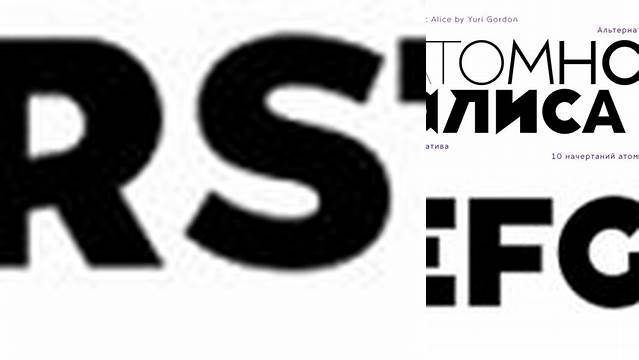
Are you on the hunt for a font that screams personality and makes your designs pop? Well, guys, let me introduce you to the electrifying world of the Atomic Alice Bold font. This isn't just any typeface; it's a statement. Whether you're crafting a vintage-inspired poster, a quirky social media graphic, or a bold headline for your blog, Atomic Alice Bold has got your back. It’s the kind of font that grabs attention and doesn't let go, making your message unforgettable. And the best part? You can often find it available for free download, which is a total win for any designer, especially those working on a budget or just exploring new creative avenues. This font brings a unique blend of retro charm and modern boldness, making it incredibly versatile. Think old-school diner signs, classic comic book lettering, or even edgy streetwear branding – Atomic Alice Bold can channel all of that and more. Its distinct character lies in its sturdy, yet friendly structure, with subtle quirks that add a layer of intrigue. It’s not overly complex, which means it’s super readable even at smaller sizes, but it truly shines when used for larger, impactful text. Get ready to discover why this font is a favorite among many and how you can easily incorporate its distinctive flair into your own projects. Let's dive into making your designs truly atomic!
Understanding the Atomic Alice Bold Font Family
Before we get too deep into the free download aspect, let's take a moment to appreciate the Atomic Alice Bold font itself. Fonts are more than just letters; they’re the voice of your message, and Atomic Alice Bold has a very distinct and powerful voice. This particular typeface, as its name suggests, is a bold variant, meaning it carries a substantial weight that commands attention. It’s often characterized by its slightly rounded edges, which give it a friendly yet robust feel, reminiscent of mid-century modern design aesthetics. Imagine the signage of a classic roadside diner or the lettering on a vintage sci-fi movie poster; that’s the vibe Atomic Alice Bold often evokes. Its design is a masterful blend of retro nostalgia and contemporary readability. The 'bold' nature means it's perfect for headlines, titles, logos, and any text that needs to stand out. But it’s not just about being loud; the subtle curves and balanced letterforms ensure it remains legible and pleasing to the eye, even in larger blocks of text if used sparingly. Understanding the nuances of a font like Atomic Alice Bold helps you leverage its strengths effectively. It’s not a font for fine print, but it’s an absolute champion for making a visual impact. The designers behind such fonts often draw inspiration from historical lettering styles, historical signage, and popular culture trends from different eras, distilling these influences into a modern, usable format. The Atomic Alice Bold font embodies this fusion, offering a unique personality that can elevate a wide range of design projects. So, when you're looking for that perfect blend of retro coolness and modern punch, Atomic Alice Bold is definitely a contender worth exploring.
Benefits of Using Atomic Alice Bold in Your Designs
So, why should you consider actually using the Atomic Alice Bold font in your next project? Well, the benefits are pretty awesome. First off, its bold weight makes it incredibly impactful for headlines and titles. It immediately draws the eye, ensuring your key message isn’t missed. Think of it as the megaphone of fonts – it shouts your message loud and clear! Secondly, its retro-modern aesthetic is super versatile. It can add a touch of cool, vintage flair to designs without looking dated. This makes it perfect for a wide range of applications, from branding and advertising to social media content and website design. Whether you’re going for a playful, nostalgic vibe or a sleek, contemporary look with a retro twist, Atomic Alice Bold can adapt. It’s also highly legible, which is crucial. Despite its boldness, the letterforms are well-defined, making it easy to read even when used in slightly larger text sizes for emphasis. This readability is key to effective communication, ensuring your audience can grasp your message quickly. Furthermore, using a distinctive font like Atomic Alice Bold can help your brand or project stand out from the crowd. In a world saturated with generic designs, a unique font adds personality and memorability. It’s a way to inject character and tell a story through your typography. And let’s not forget the economic advantage – finding a high-quality, attention-grabbing font like this for free download is a massive plus for budget-conscious designers or small businesses. It allows you to achieve a professional and stylish look without breaking the bank. Overall, Atomic Alice Bold is a fantastic tool for adding visual punch, unique style, and strong readability to your creative endeavors.
Mastering Typography with Atomic Alice Bold
Alright, let's talk about actually using the Atomic Alice Bold font like a pro. Typography is an art, guys, and choosing the right font is just the first step. Now that you’ve got Atomic Alice Bold downloaded, it’s time to make it sing! Remember its strong, bold nature? That means it’s fantastic for creating hierarchy in your designs. Use it for your main headings and subheadings to guide the reader’s eye through your content. Pair it with a simpler, lighter font for body text to ensure readability. Think about contrast – a bold, slightly stylized font like Atomic Alice Bold needs a complementary font that won’t compete for attention. A clean sans-serif or a simple serif font often works wonders. Don’t be afraid to play with spacing, too! Adjusting the kerning (the space between individual letters) and leading (the space between lines) can dramatically impact the overall feel and legibility of your text. For instance, slightly looser tracking (letter-spacing) can sometimes make bold fonts feel airier and more modern, while tighter kerning can give a more classic, compact look. Consider the context of your design. Is it for a playful invitation, a professional business card, or a vintage-inspired poster? Atomic Alice Bold can work for all, but how you use it will change. For a vintage poster, you might pair it with distressed textures or other retro elements. For a modern brand, you might use it in clean blocks of color. Experimentation is your best friend here. Try different text sizes, alignments, and color combinations. Sometimes, the magic happens when you step outside the usual rules. Remember, the goal is to create something visually appealing and communicate your message effectively. Atomic Alice Bold gives you a powerful tool to do just that. Get creative, have fun, and make your typography truly stand out!
Tips for Pairing Atomic Alice Bold with Other Fonts
Choosing the right font pairing is crucial, especially when using a distinctive font like Atomic Alice Bold. You don’t want your text to look like a chaotic mess, right? The key is contrast and harmony. Since Atomic Alice Bold is inherently bold and carries a strong retro vibe, you’ll want to pair it with fonts that complement rather than compete. A fantastic strategy is to pair it with a clean, legible sans-serif font for your body text. Think fonts like Open Sans, Lato, Montserrat, or Roboto. These fonts are typically neutral and highly readable, providing a solid foundation that allows Atomic Alice Bold to shine in headlines and key phrases. Another great option is to use a simple serif font for contrast. A classic serif like Garamond or Times New Roman (used judiciously) can add a touch of elegance and historical depth, creating an interesting juxtaposition with Atomic Alice Bold’s bolder personality. The trick is to ensure the serif font isn’t too decorative or heavy, maintaining a balance. You can also explore pairing Atomic Alice Bold with other fonts from the same